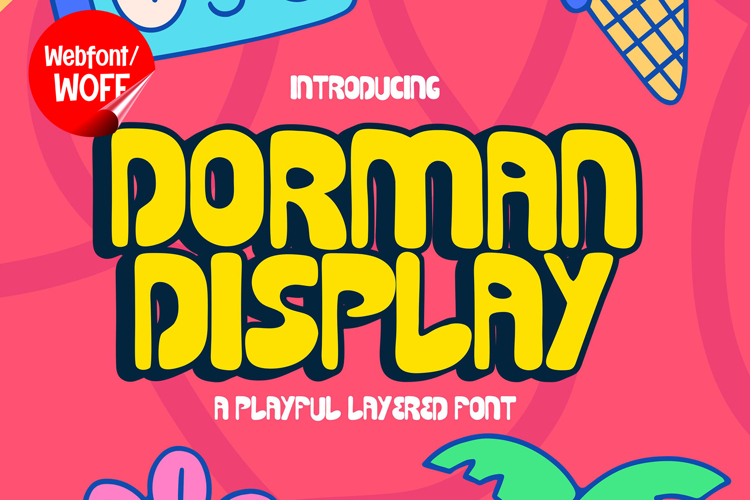
Dorman Display | Quirky Webfont for Creative Websites
Dorman Display is a quirky webfont designed to bring a unique, playful, and unconventional style into modern website design. With its distinctive letterforms and unexpected shapes, this font delivers a creative and eye-catching appearance that stands out from traditional typography. It is an excellent choice for projects that aim to express individuality and bold character through design.
Dorman Display includes a complete set of uppercase characters designed with quirky and playful forms. The irregular shapes and creative proportions give each letter a lively personality, making the font ideal for headlines, banners, hero sections, and featured content where originality and visual impact are essential. Its unconventional style helps create a strong and memorable impression.
In addition to letters, the font includes numbers and punctuation, allowing flexible usage across various parts of a website. It works well for promotional content, product highlights, event announcements, and call-to-action elements. Each character maintains a consistent quirky style, ensuring a cohesive and unified visual identity throughout the layout.
With multilingual support, Dorman Display includes a wide range of accented characters, making it suitable for international websites and global audiences. This allows content to be displayed clearly across different languages while preserving the playful and distinctive aesthetic.
The quirky display style of Dorman Display makes it especially suitable for creative portfolios, lifestyle blogs, entertainment platforms, branding projects, and artistic websites. Its expressive and unconventional design adds personality and charm, helping websites stand out in visually competitive environments. The playful character also enhances branding that focuses on creativity and originality.
Despite its artistic and unusual appearance, Dorman Display is designed with readability in mind. The spacing and proportions are carefully balanced to ensure clarity, particularly in display sizes. This makes it effective for impactful headings and short content elements where both style and usability are important.
Dorman Display is a webfont that combines quirky creativity with modern digital performance. Its unique shapes, playful character, and expressive style create a distinctive typographic presence that enhances website design. For projects that require a fun, creative, and visually engaging font, Dorman Display offers a reliable and standout solution.